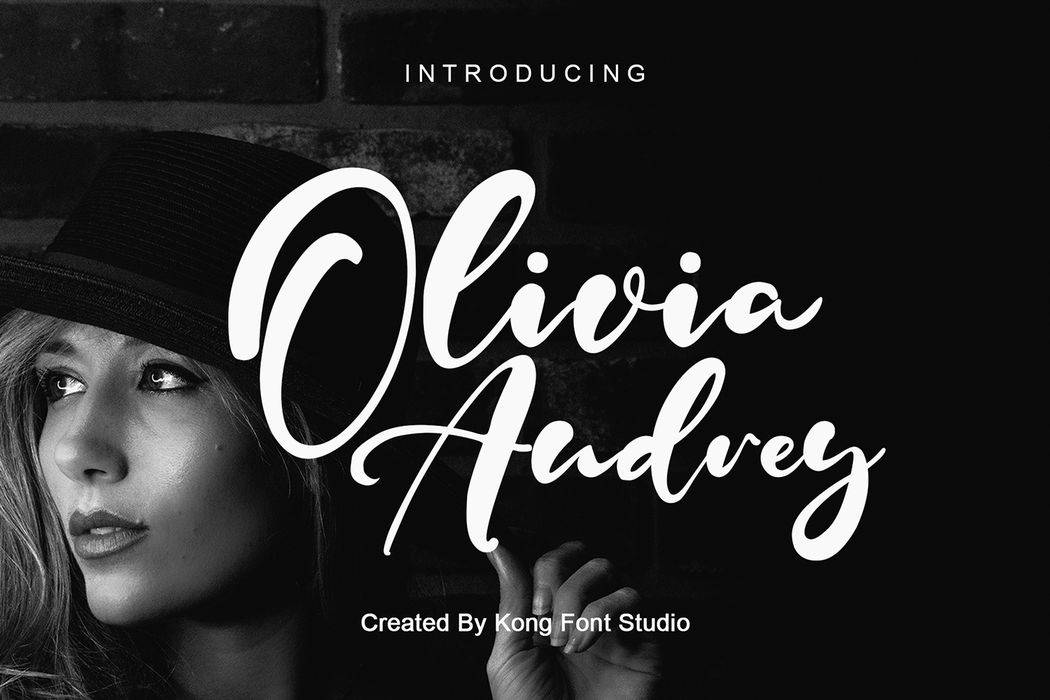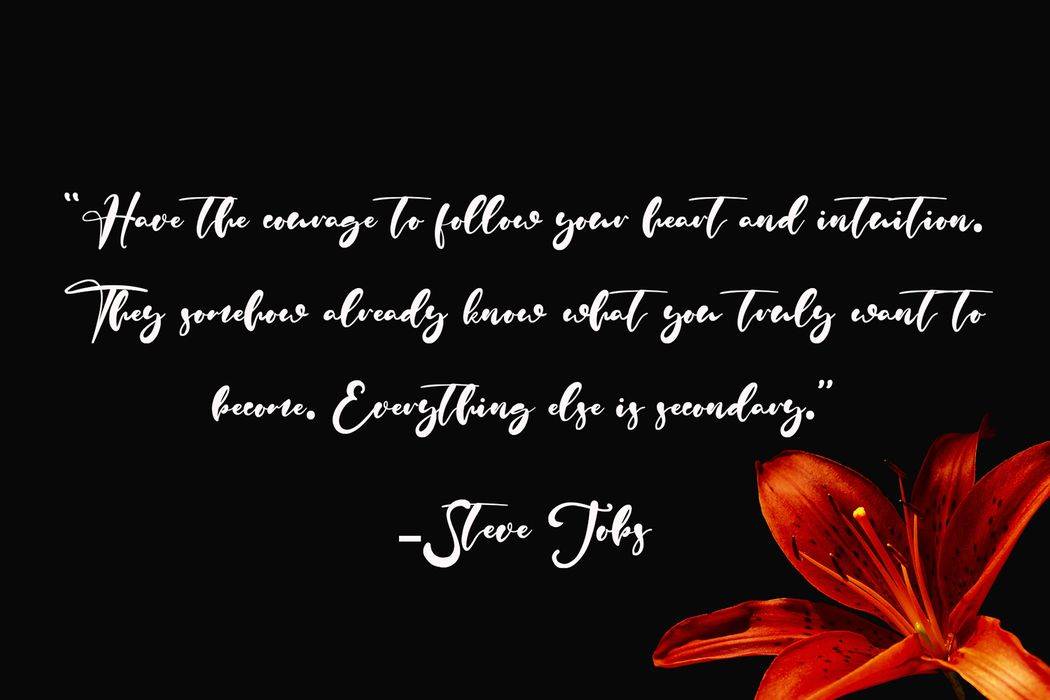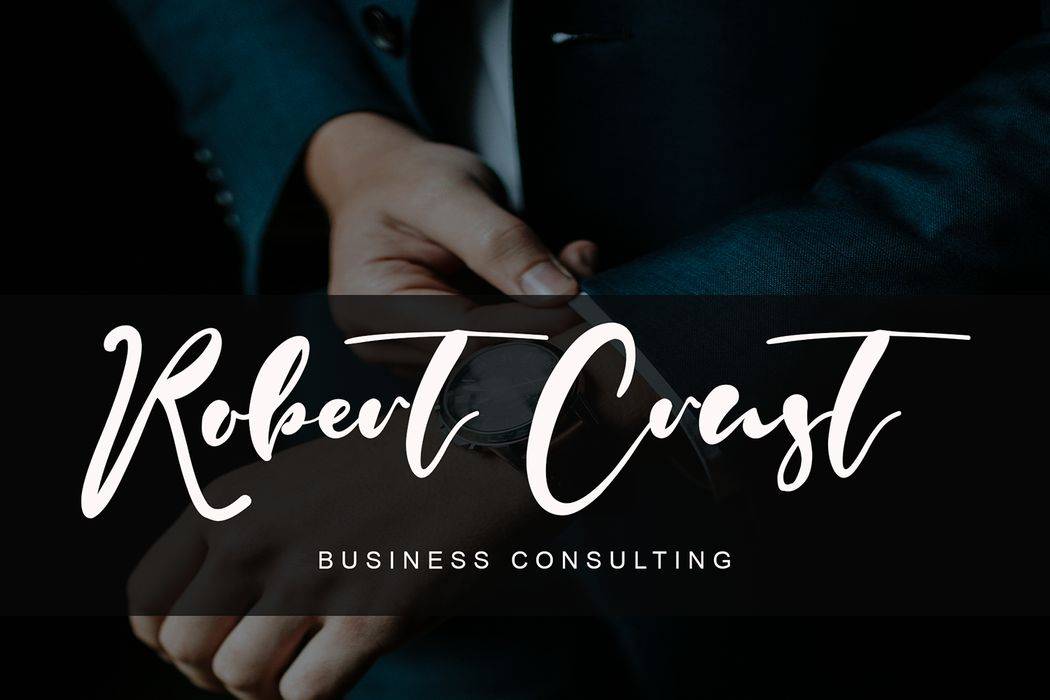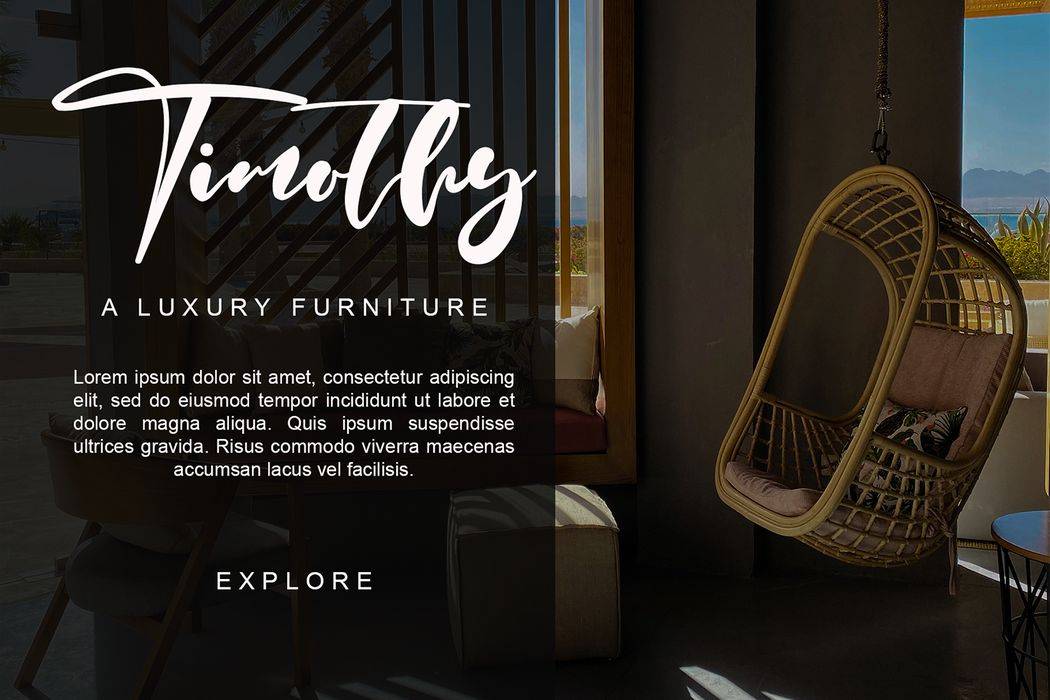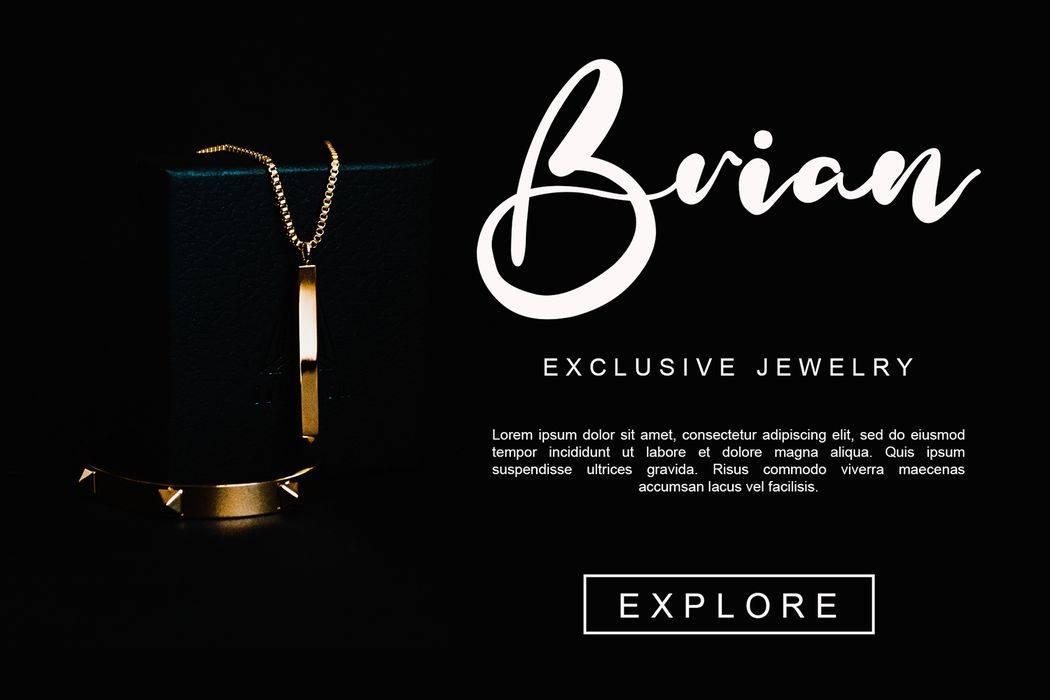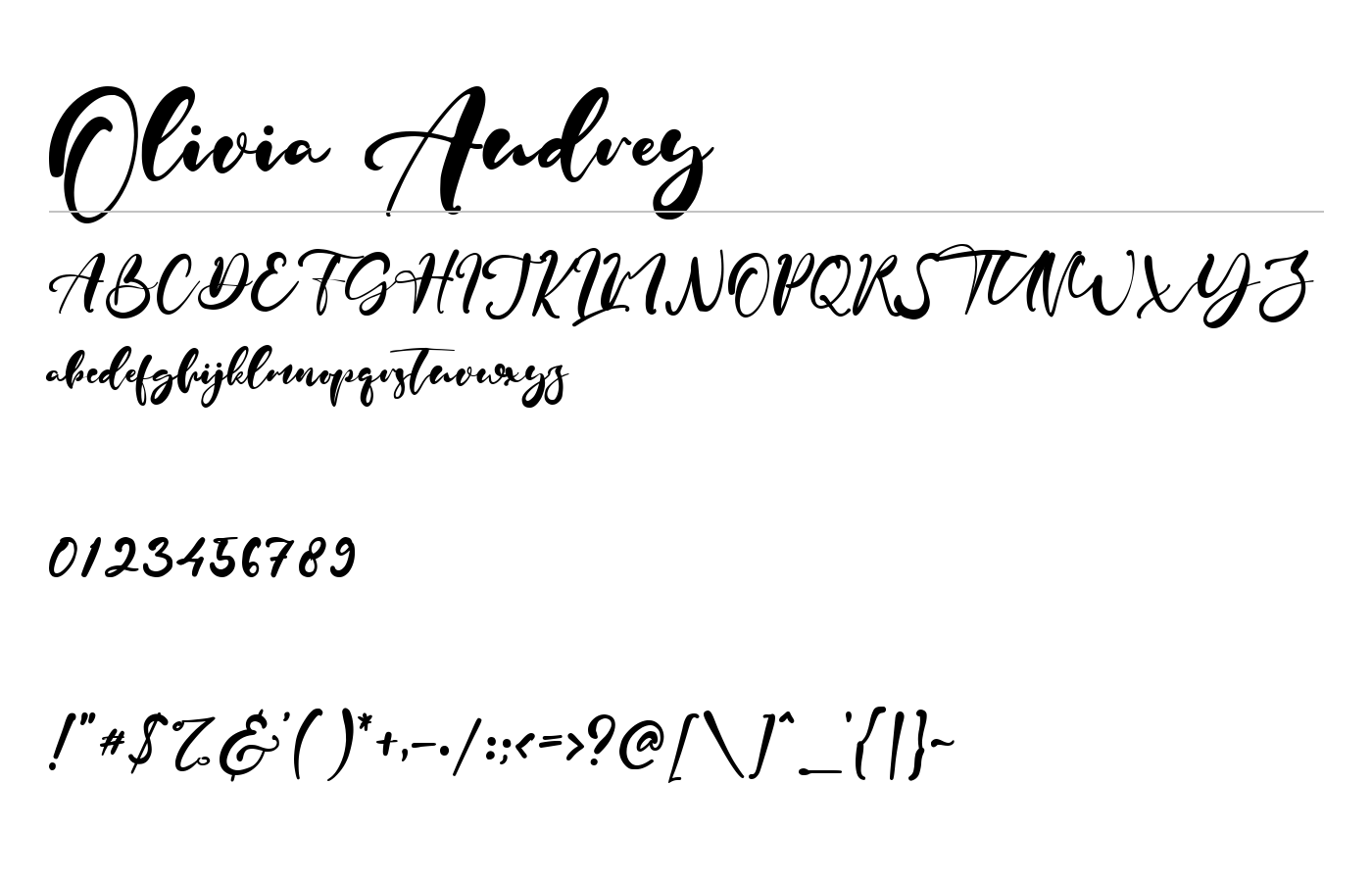
Olivia Audrey is a charming script font with a warm, handwritten feel, featuring smooth, flowing strokes and elegant letterforms that suggest a personal, friendly touch. Its moderate weight and fluid curves make it perfect for creative projects like invitations, branding, and social media graphics where a stylish yet approachable vibe is desired. This font works beautifully for expressive headlines and decorative text that aims to evoke elegance and individuality.
Olivia Audrey Font
About Olivia Audrey Font